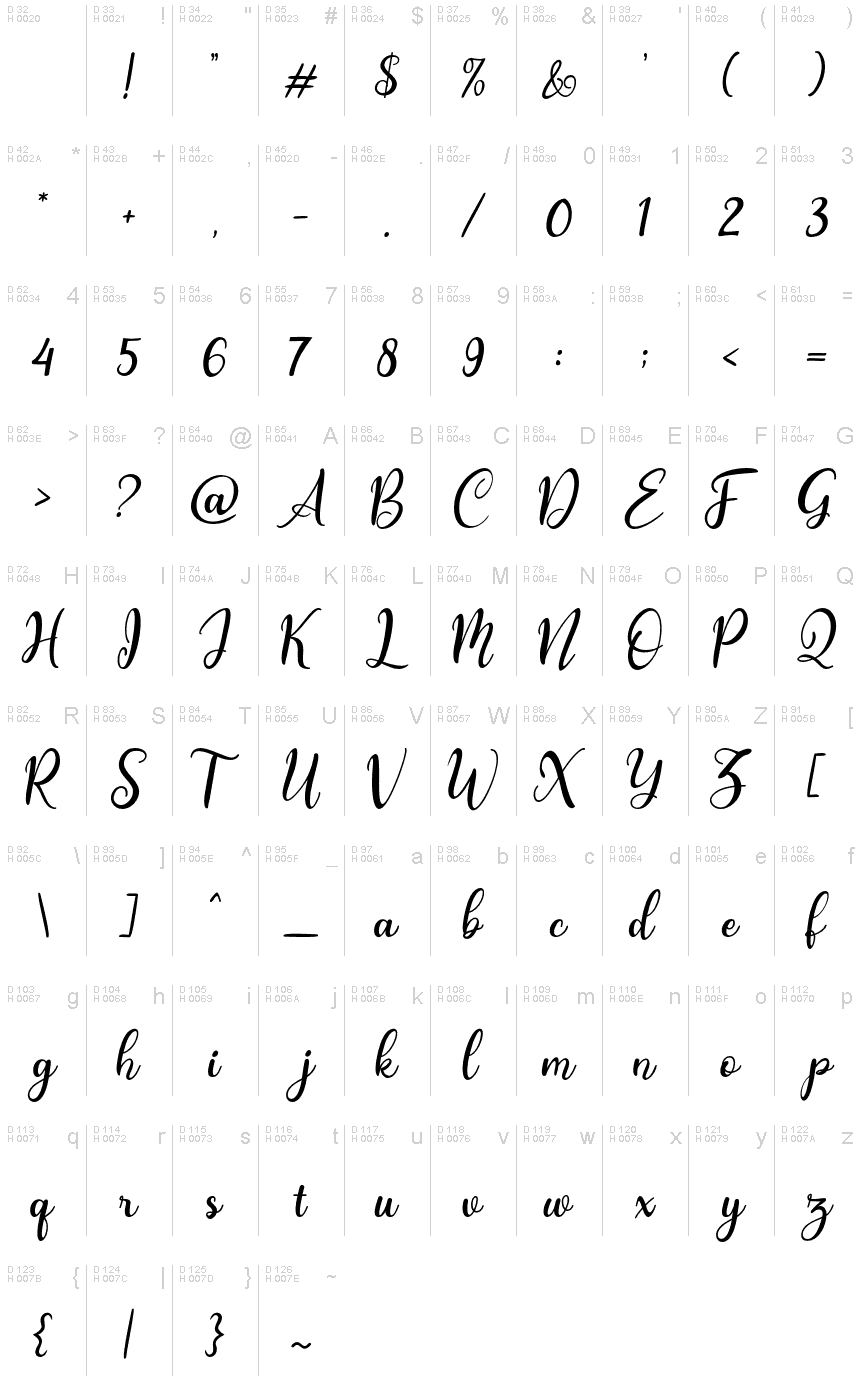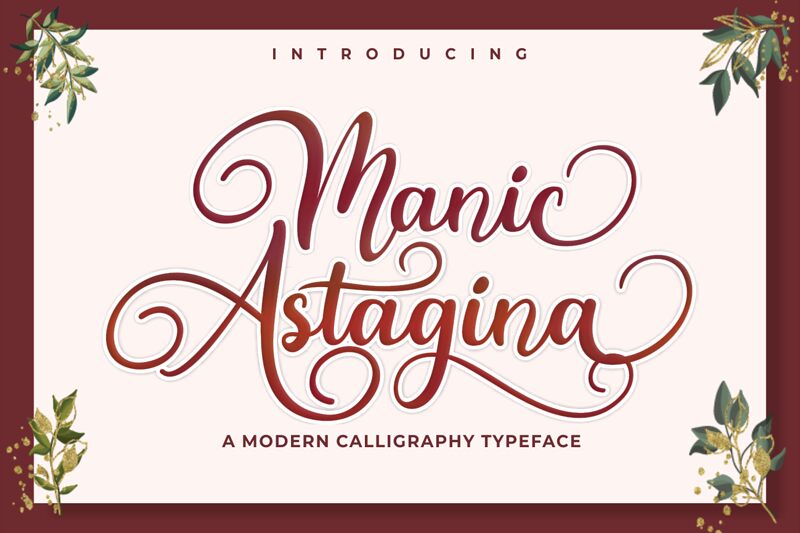
Manic Astagina
Manic Astagina, crafted by Letternun, is a captivating modern calligraphy font that adds flair to any project. With its semi-bold weight, this font emanates confidence and sophistication. Perfect for branding projects seeking a touch of elegance, such as luxury fashion labels or high-end beauty products. Its graceful strokes and fluid curves make it equally suitable for wedding invitations, greeting cards, or feminine blog headers. Whether you aim to convey chic minimalism or evoke a sense of romance, Manic Astagina will elevate your designs with its unique blend of contemporary style and timeless charm.